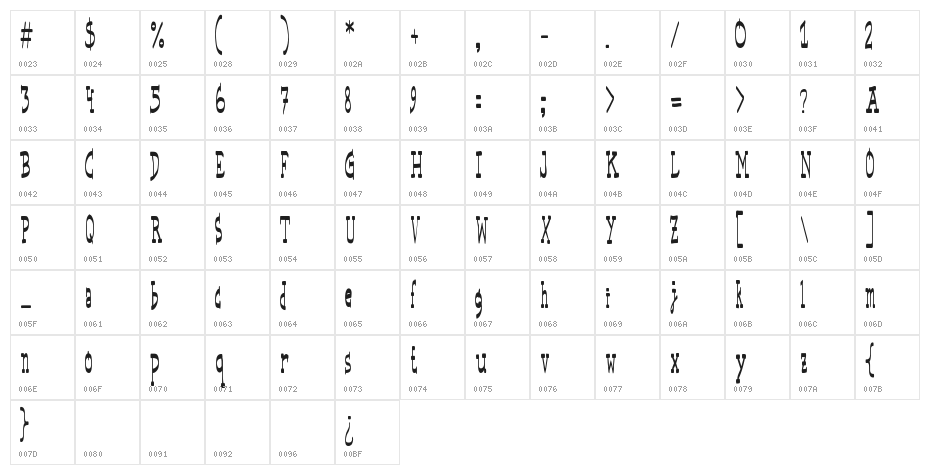
Basic Space Font
| 全体的なスタイル | Casual |
| 用途 | Headlines, Logos, Informal Text |
| おすすめプロジェクト | Ideal for children's books, greeting cards, playful branding, and casual invitations. |